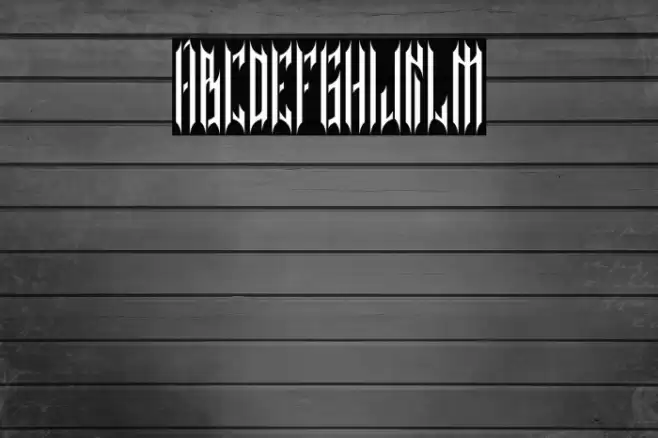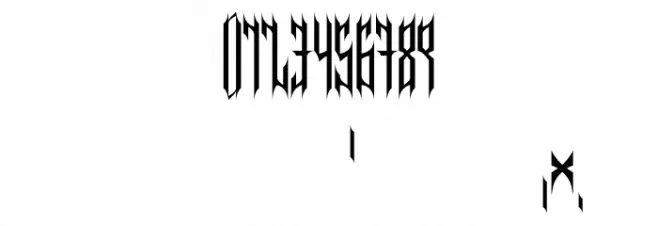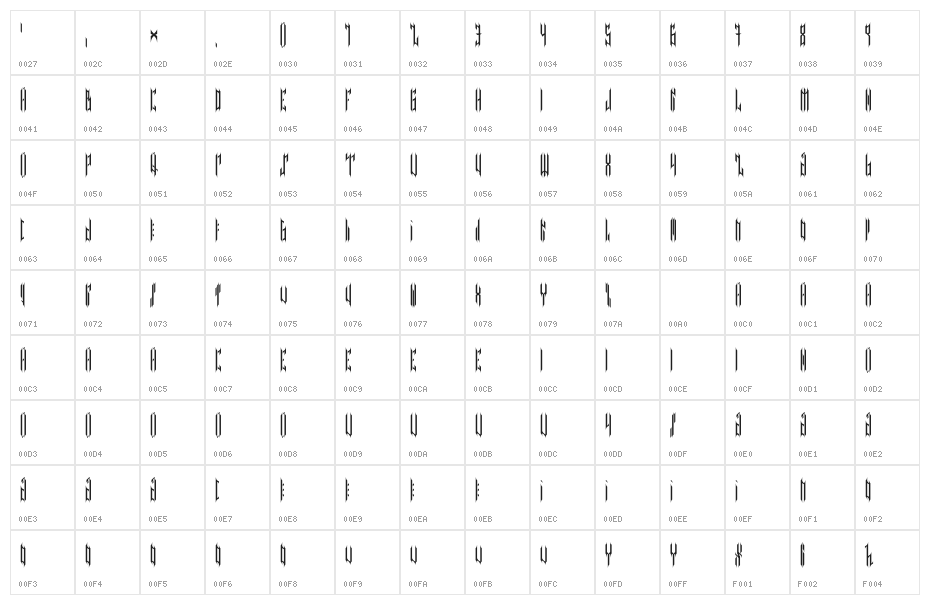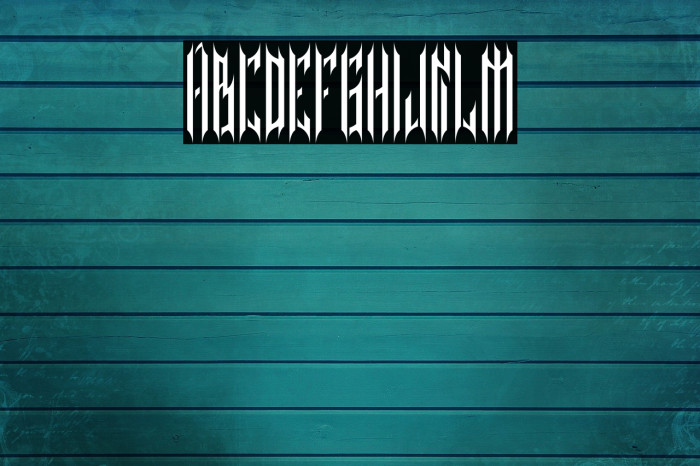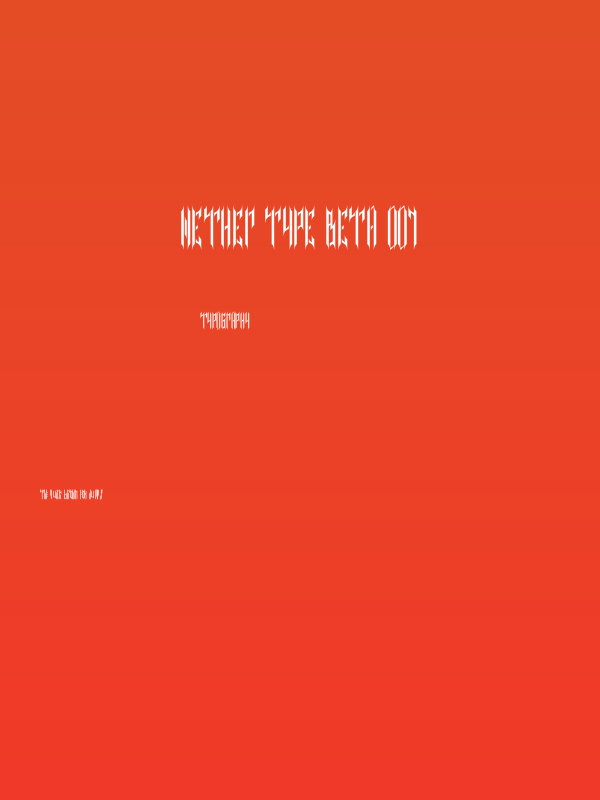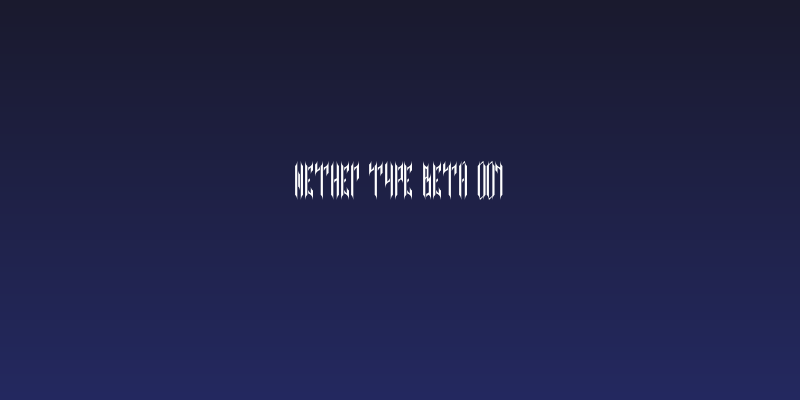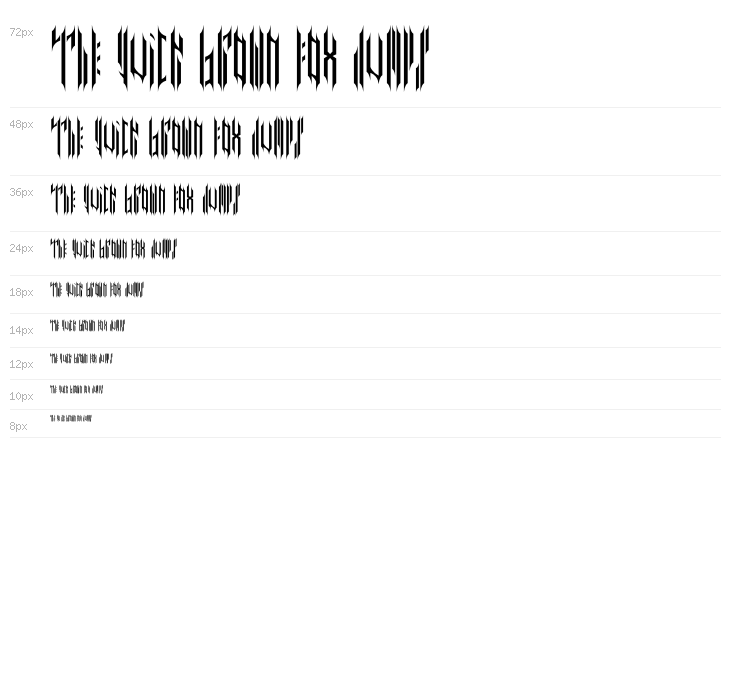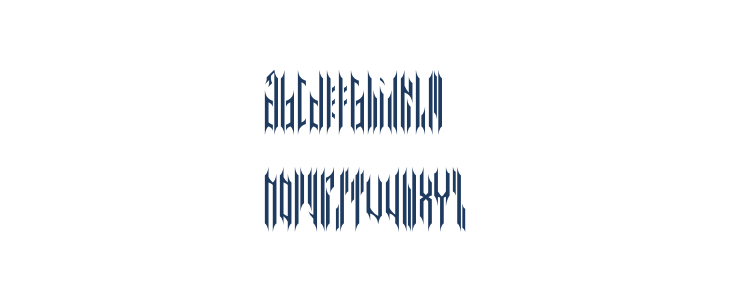
NETHER TYPE BETA 001 Font
NETHER TYPE BETA 001 Description
This font features a bold and striking design with sharp, angular edges reminiscent of traditional Blackletter styles. The characters are tall and narrow, creating a dramatic and imposing presence. Each letter is intricately designed with pointed serifs and a high level of detail, making it ideal for projects that require a gothic or medieval aesthetic. The font's unique style is both decorative and legible, suitable for creating eye-catching headlines or logos that demand attention.
A bold, angular Blackletter-style font with sharp, intricate details from Uncategorized fonts.
- Proposed Projects: Ideal for gothic-themed designs, medieval event posters, band logos, or any project requiring a dramatic and historical touch.
- Character Spacing: Tight